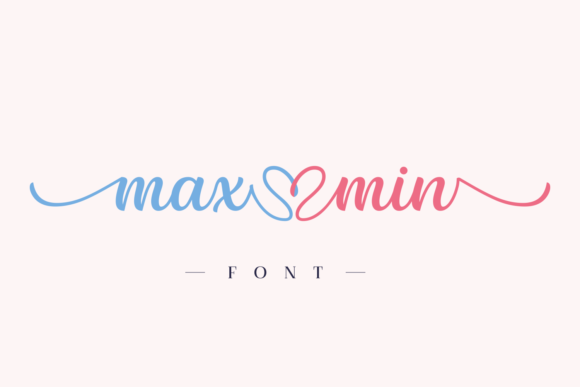
Step into the world of Max Min Font, a script font family that exudes elegance and delicacy, tailored specifically for the creation of captivating wedding signs. Crafted by the skilled hands of Situjuh, this font is a symphony of well-rounded letters, dancing harmoniously to form a visual masterpiece.
With its versatility, Max Min Font gracefully adapts to a myriad of design aesthetics, effortlessly elevating your projects to new heights of sophistication. Its inherent charm lends itself seamlessly to wedding invitations, adding a touch of heartfelt elegance to your special day.
Beyond wedding designs, Max Min Font shines as a versatile tool for crafting logos, branding materials, and social media graphics. Its ability to effortlessly blend into various design styles makes it a must-have for designers seeking a font that effortlessly elevates their creative endeavors.
But what truly sets Max Min Font apart is its PUA encoding, granting you effortless access to the full spectrum of glyphs and swashes. Unleash your creativity as you explore a world of limitless possibilities, crafting designs that radiate individuality and artistic flair.
Indulge in the beauty of Max Min Font and let your designs blossom with elegance, versatility, and effortless charm. Experience the magic of this font family and elevate your creative pursuits like never before!